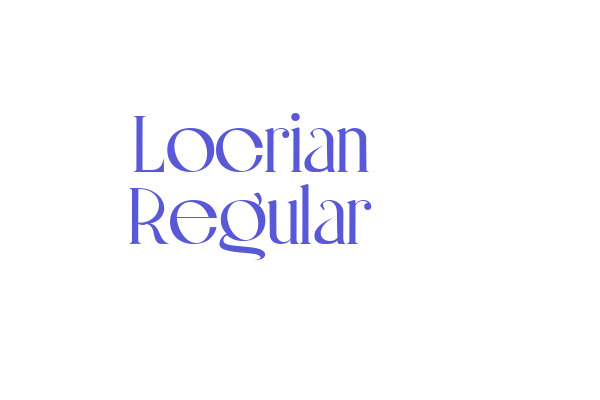
Locrian Regular is a basic serif font designed by Mohamad Farhan Ramadhan. With its clean and classic design, this font is versatile and suitable for a wide range of projects. Whether used for formal documents, invitations, or branding materials, Locrian Regular adds a touch of sophistication to any design.
Font Name: Locrian Regular
Designer: Mohamad Farhan Ramadhan
Font Family: Locrian